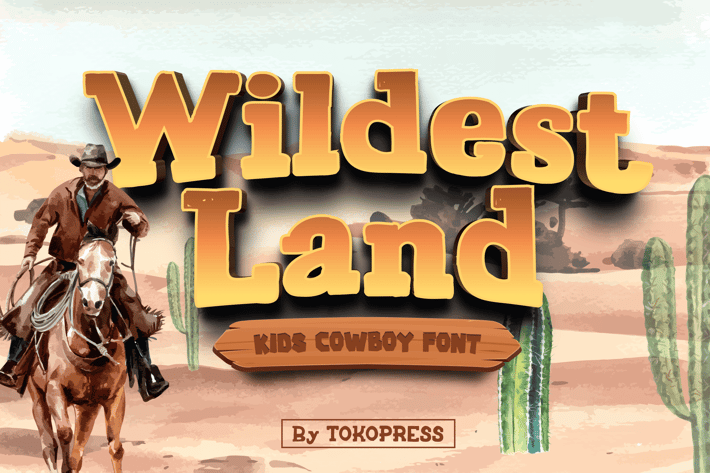
Wildest Land - Cowboy Kids Font
Wildest Land - Gaming Font
Wildest Land is a playful cowboy-style display font built for kids' party designs, birthday invites, western games, and YouTube thumbnails. With thick slab serifs, quirky letter curves, and slightly condensed proportions, it gives a bold, rugged, and friendly feel while keeping things fun and energetic. Inspired by old western signage and kid-style comic headers, it’s perfect for playful branding and storytelling in both print and digital.
Whether you're designing a "Wanted" party poster, a wild west birthday card, or cowboy-themed game UI, Wildest Land makes sure your message jumps out with playful energy and cowboy charm. Its bouncy rhythm and vintage poster tone connect instantly with young audiences and nostalgic themes, making it ideal for children’s books, games, stickers, packaging, and toy branding.
Bold Western Personality with Playful Vibes
- Classic cowboy display feel with fun, chunky flair
- Rounded, quirky serifs that feel both retro and approachable
- Great legibility for headlines and kid-centered designs
- Perfect for event posters, invitations, signage, game logos, and labels
- Excellent pairing for cartoon artwork, pirate maps, or vintage game overlays